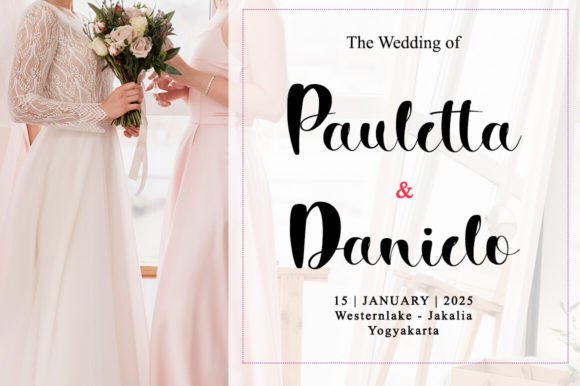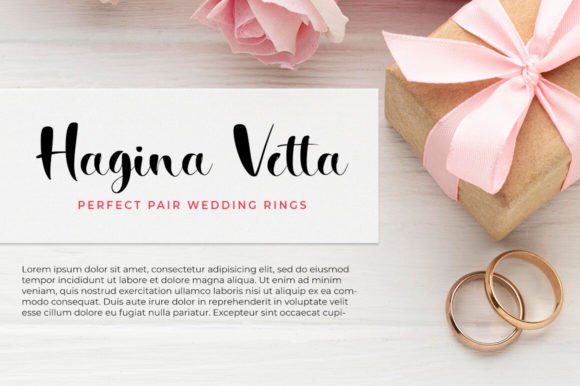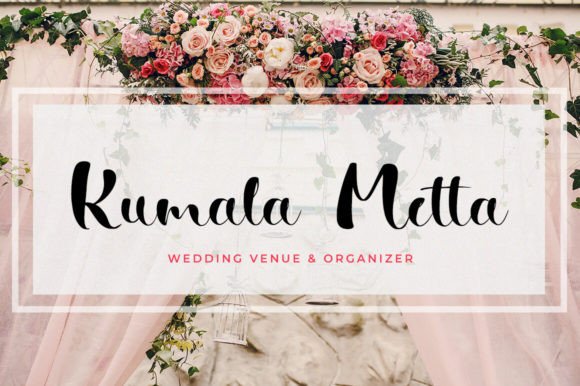
Introduction to Nacellia Font
Nacellia is a charming handwritten font that evokes the warmth of a handwritten note on a sunny morning.
With its gentle curves and friendly demeanor, it’s perfect for adding a personal touch to invitations, greeting cards, and cozy branding projects Embrace the heartfelt charm of this lovely font in your designs.
Key Features of Nacellia Font
Why Choose Nacellia Font?
Nacellia Font offers exceptional quality and versatility, making it a valuable addition to your design toolkit. Whether you’re creating for personal projects or commercial use, Nacellia Font delivers professional results.